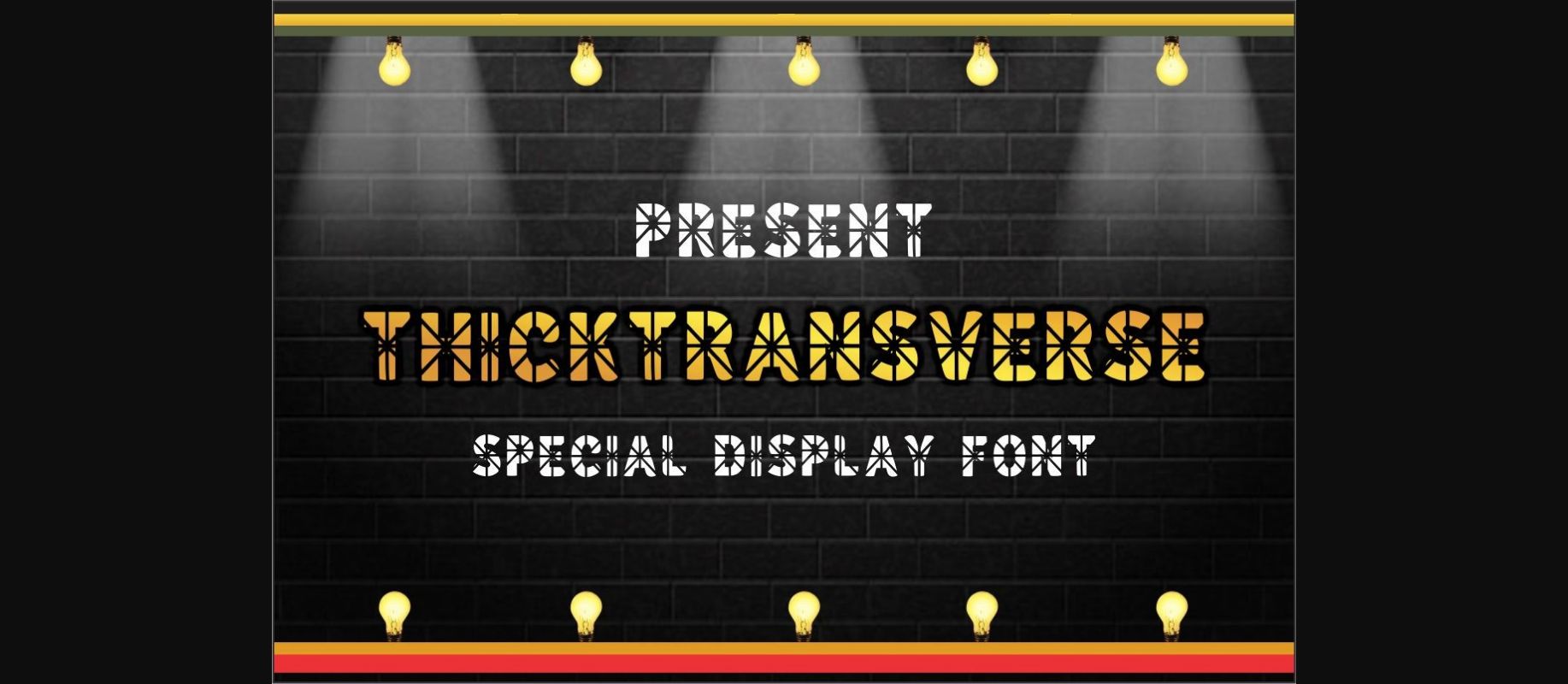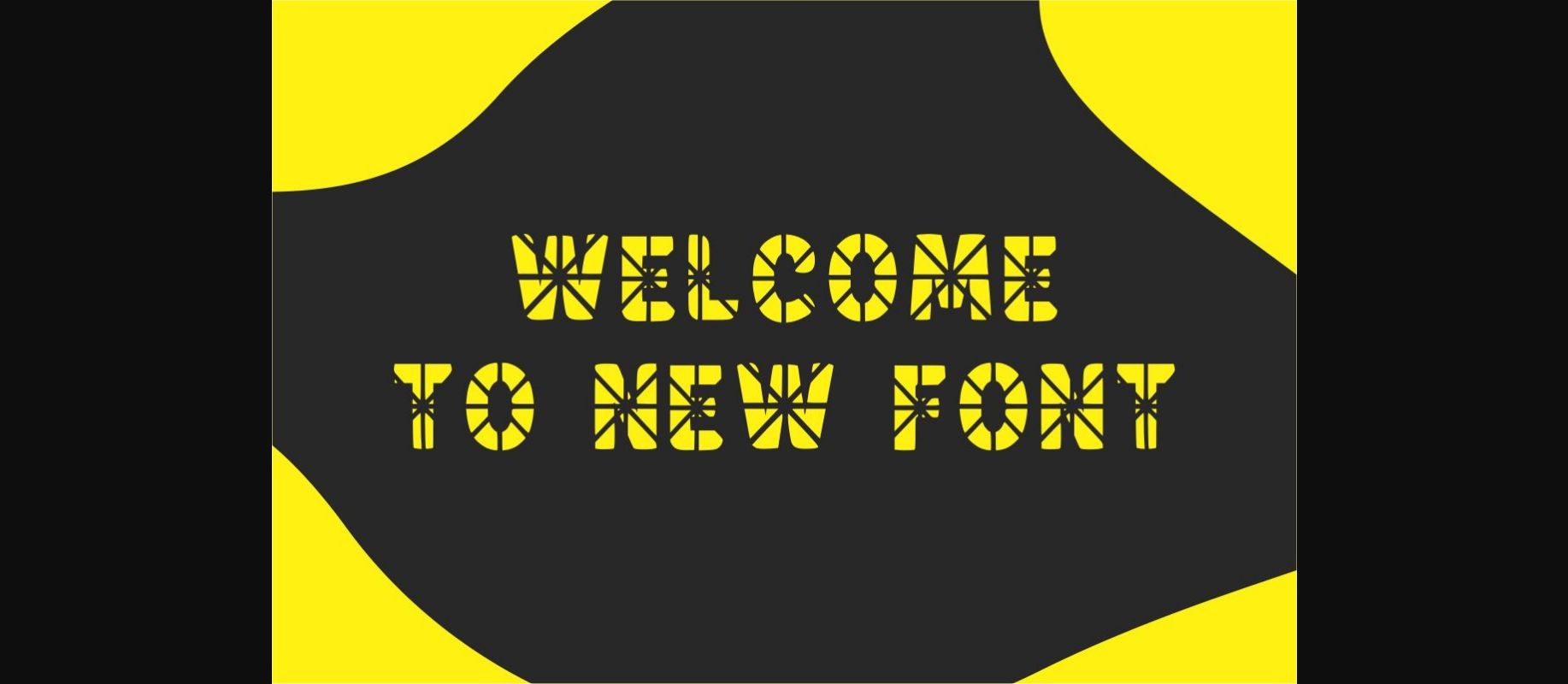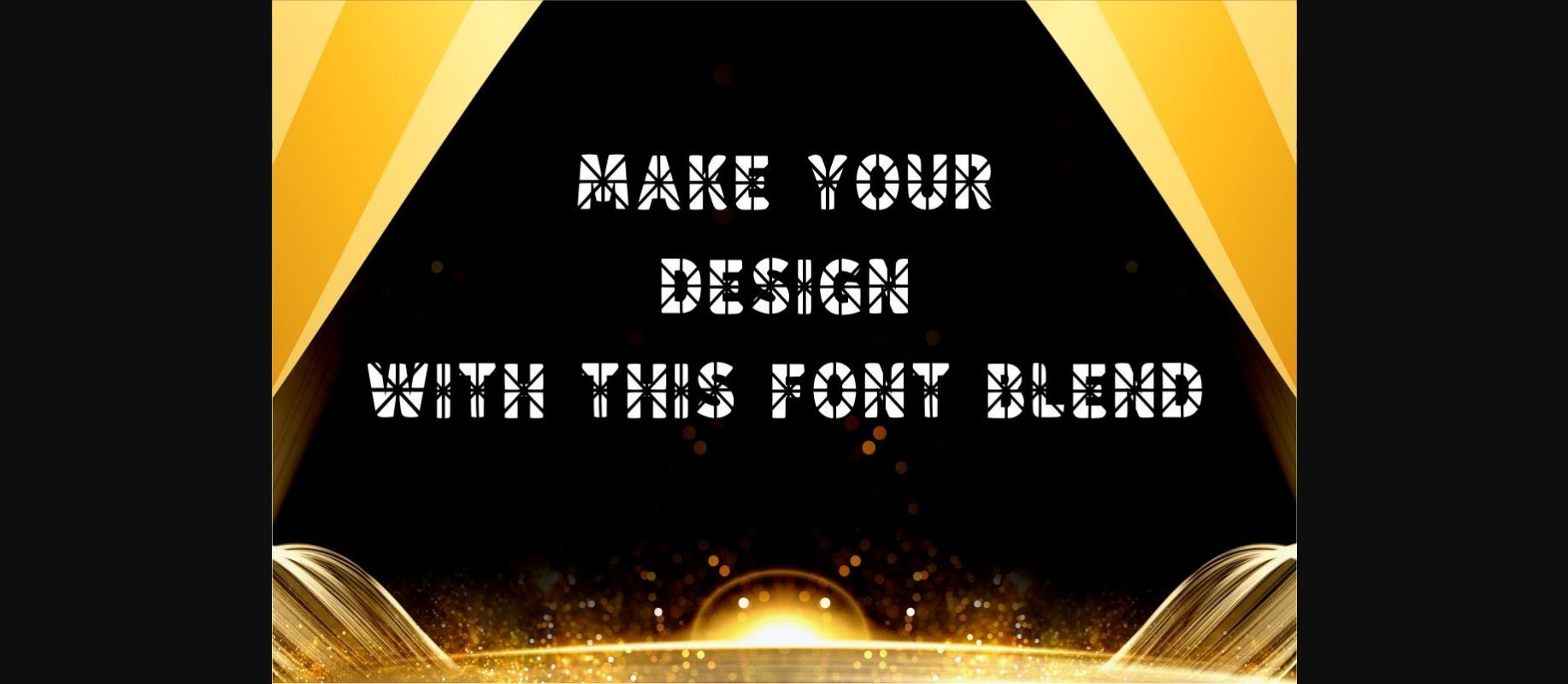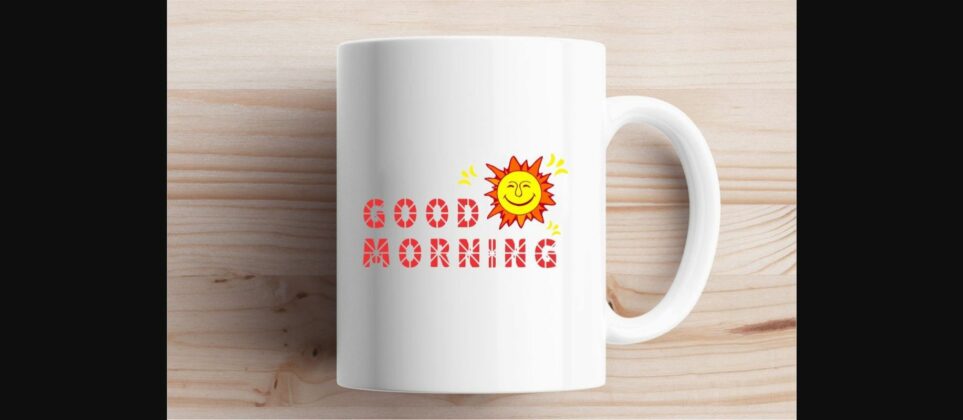
About Thicktransverse Font
Thicktransverse is a cross-shaped and slightly odd looking decorative font. Whether you’re using it for crafts, digital designs, presentations, or making clothes designs, this font has the potential to become your favorite font, whatever the occasion!